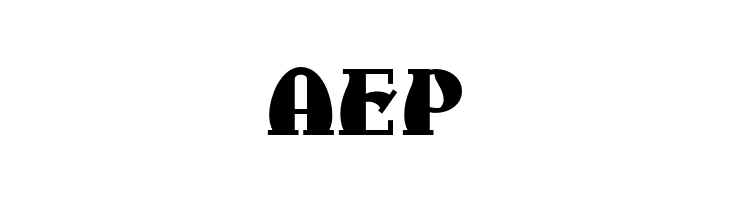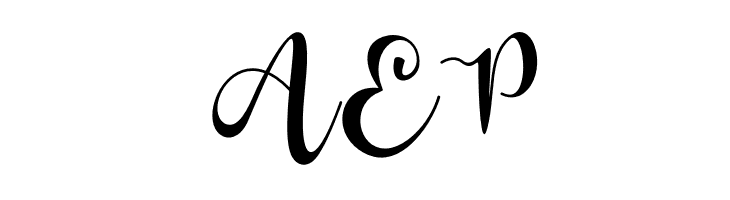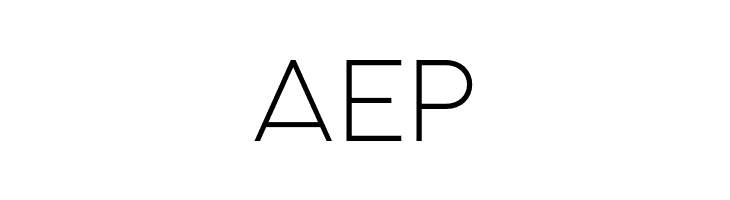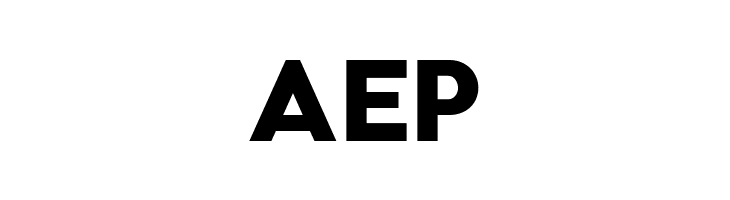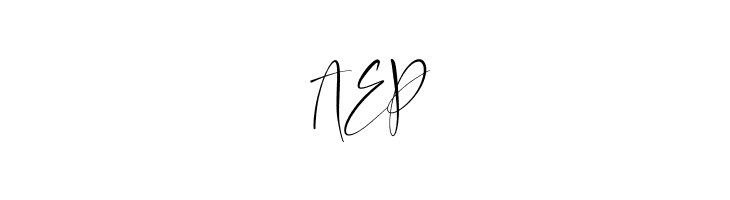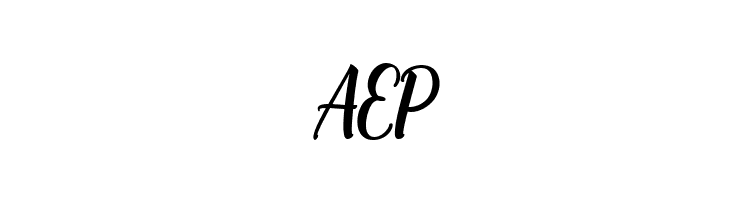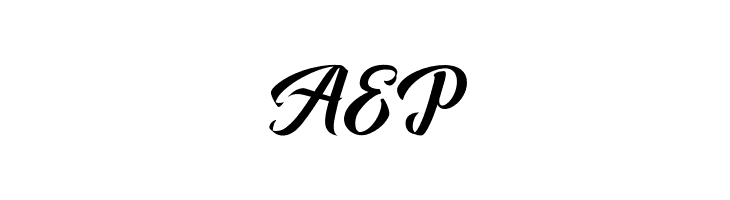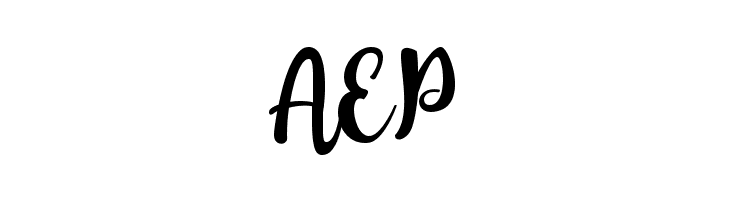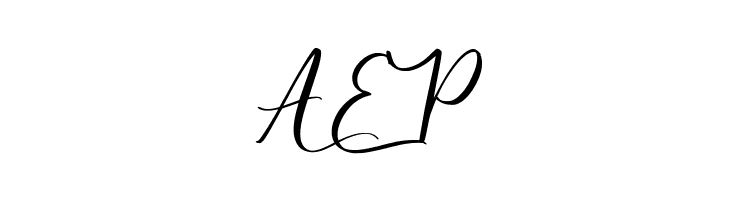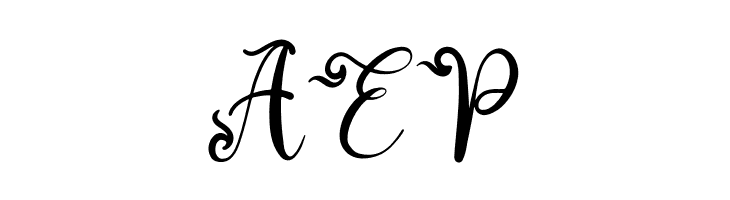
An ornate and bold font with decorative uppercase and strong lowercase characters.
A bold, blackletter-inspired font with sharp, angular lines and a medieval aesthetic.
A modern, elegant handwritten font with fluid, cursive strokes.
A bold, expressive handwritten font with dynamic strokes and decorative flair.
An elegant, cursive handwritten font with a fluid and artistic style.
A modern, sans-serif typeface with clean lines and uniform stroke width.
A modern, light, italic sans-serif font with a sleek and streamlined appearance.
A clean, modern sans-serif font with uniform stroke width and slightly condensed proportions.
A modern, italic sans-serif font with clean lines and balanced proportions.
A modern, clean sans-serif typeface with balanced stroke width and clear readability.
A modern sans-serif font with an italic slant and balanced proportions.
A graceful, handwritten script font with flowing, elegant strokes.
A graceful and elegant cursive script with medium contrast.
An elegant, high-contrast script font with flowing, cursive strokes.
A bold, modern font with thick, uniform strokes and strong visual impact.
A modern, geometric sans-serif font with clean lines and balanced spacing.
A lively and expressive handwritten font with fluid, dynamic strokes.
A dynamic and elegant script font with fluid, cursive letterforms.
A dynamic and elegant script font with flowing, cursive letterforms.
An elegant script font with intricate swashes and a handwritten feel.
A playful, casual handwritten font with fluid strokes and a consistent slant.
A modern, cursive font with elegant connections and medium contrast.
A stylish and elegant script font with flowing, cursive design.
An elegant script font with flowing, cursive letters and intricate swashes.
An elegant, cursive font with flowing, ornate characters.
A bold, high-contrast decorative font with dramatic serifs.
A dynamic and elegant script font with flowing, cursive letterforms.
A bold, flowing script font with elegant, cursive letterforms and dynamic flourishes.
A graceful and elegant script font with flowing cursive lines.
A dynamic and elegant script font with flowing, connected letters.
A dynamic and elegant script font with smooth, flowing curves.
A modern, elegant font with sharp and smooth elements, ideal for versatile applications.